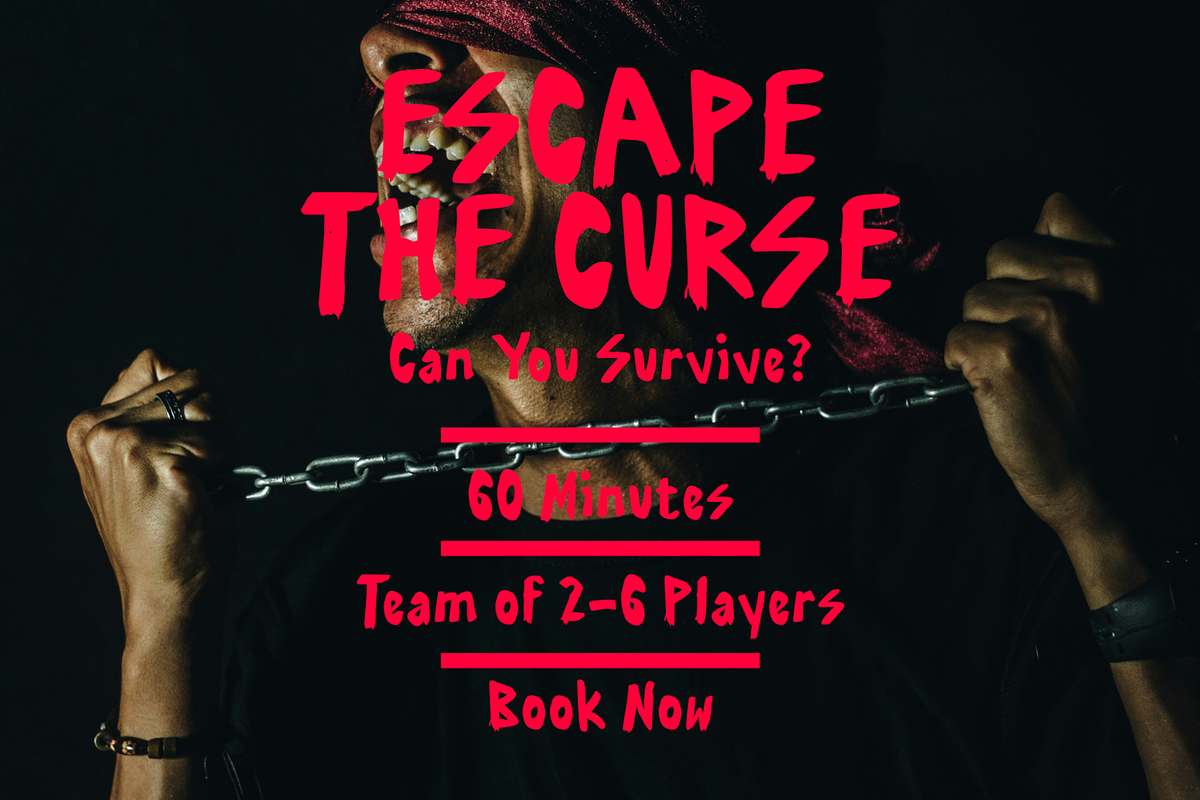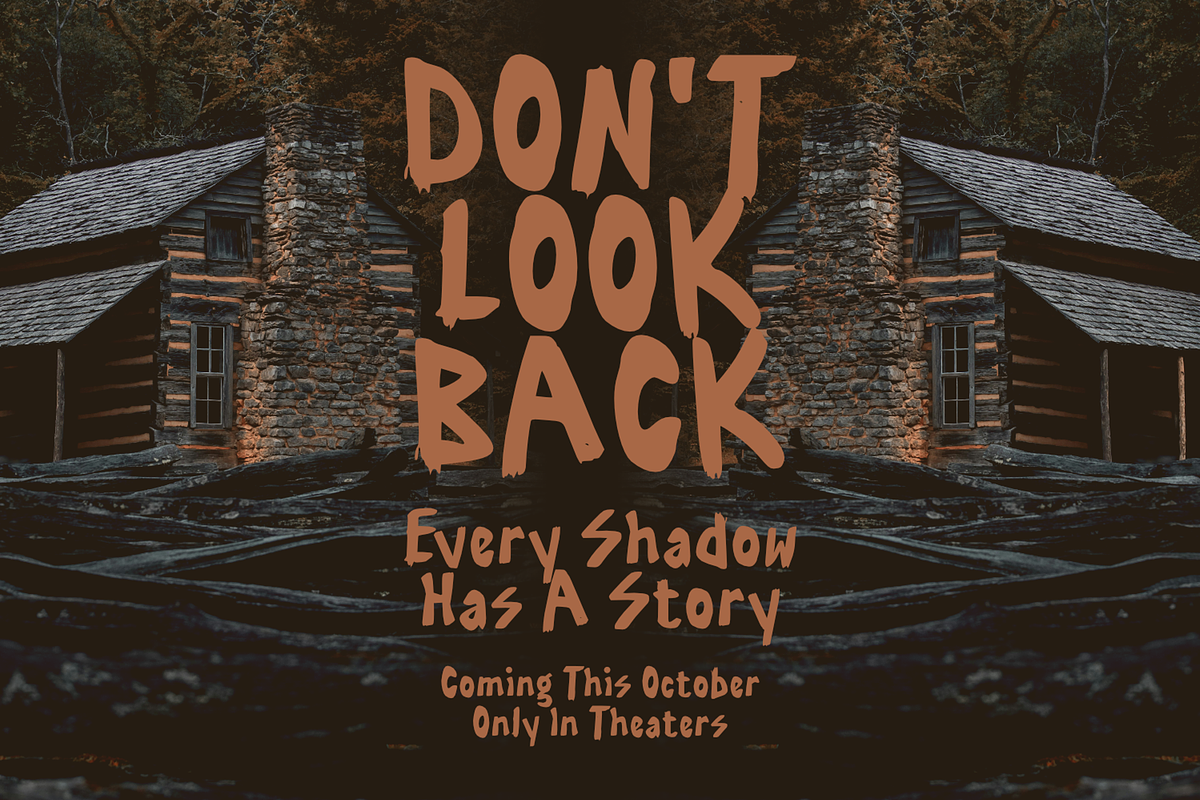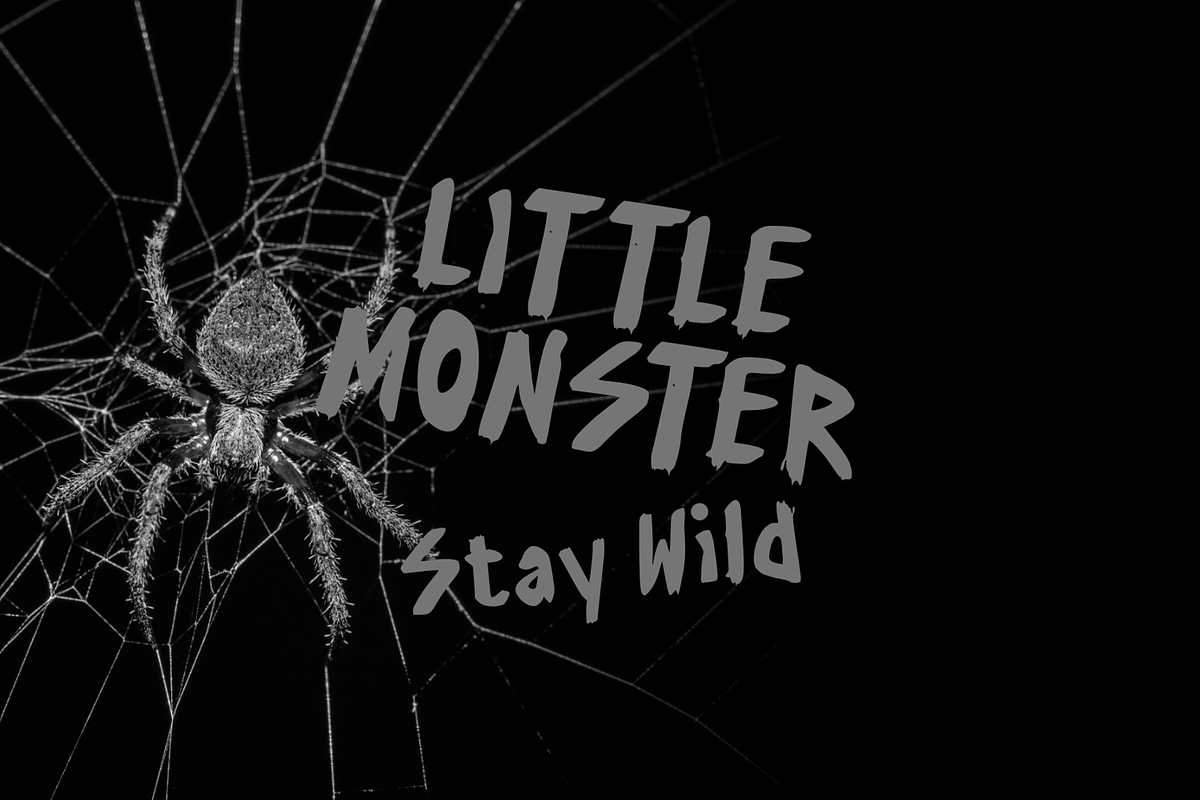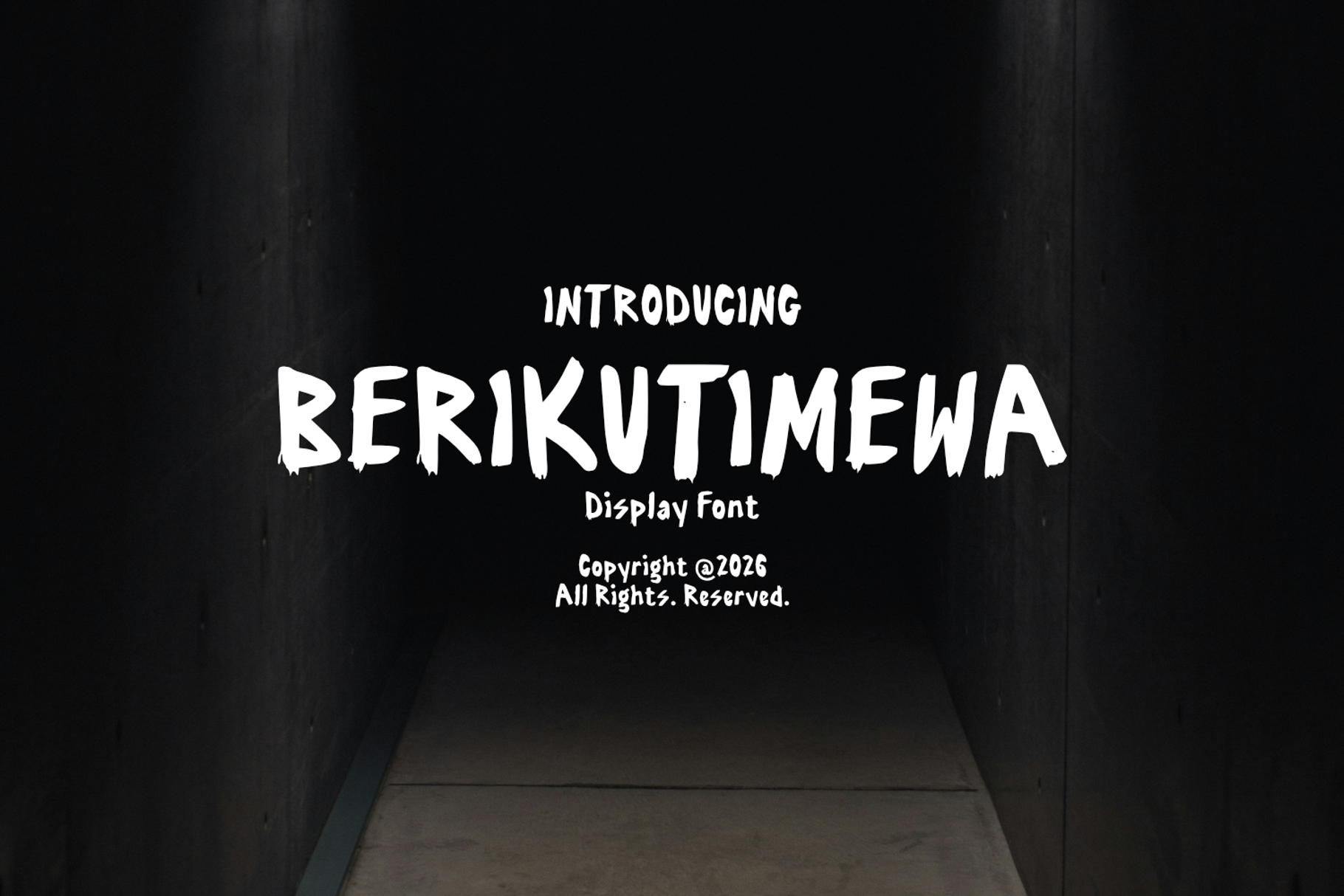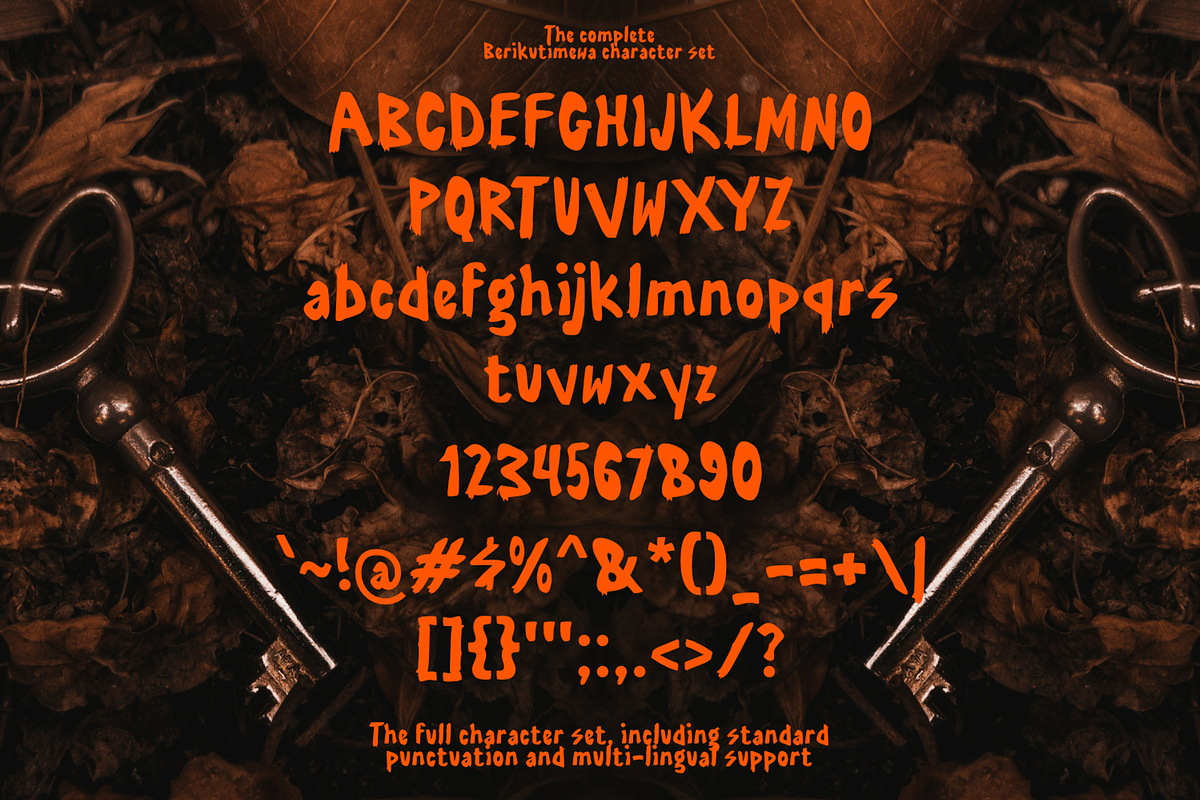
Berikutimewa Horror Display Font
Berikutimewa is a bold hand-drawn display font with a spooky, playful, and rugged personality. Featuring rough brush-like edges and an organic handcrafted feel, this font is perfect for creating eye-catching designs that demand attention. Whether you're designing Halloween posters, horror movie titles, gaming graphics, themed merchandise, party invitations, or social media content, Berikutimewa delivers a unique and expressive look. Its bold letterforms and imperfect details add character, making every headline feel fun, mysterious, and unforgettable.